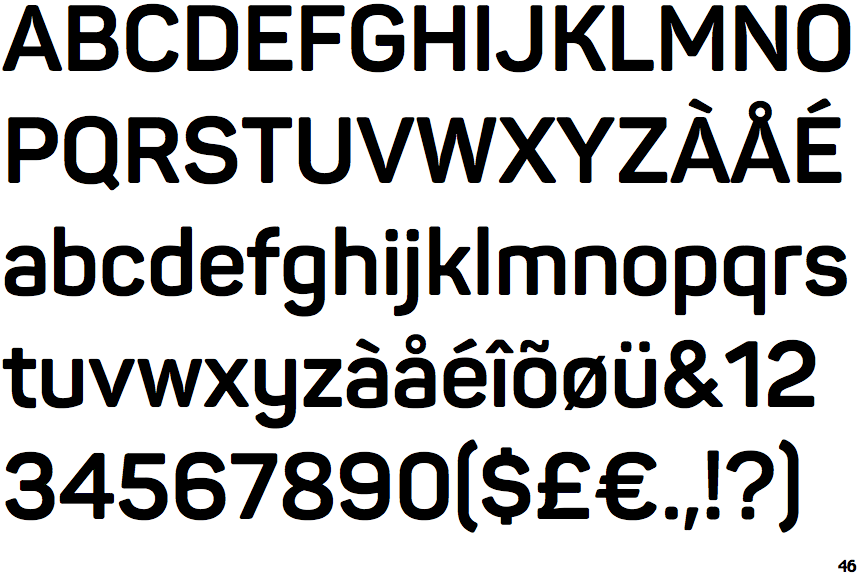
Awesome Panton Bold Font References. Anton is a reworking of a traditional advertising sans serif typeface. Thousands of designers (famous or not) use the image font detection system.
Font fabric foundry released this font. Lorem ipsum has been the industry's standard dummy text ever since the 1500s, when an unknown printer took a galley of type and scrambled it to make a type specimen book. Panton bold is a bold truetype font.
It Has 9 Uprights And 9 Matching Italics Ranging From Thin To Heavy.